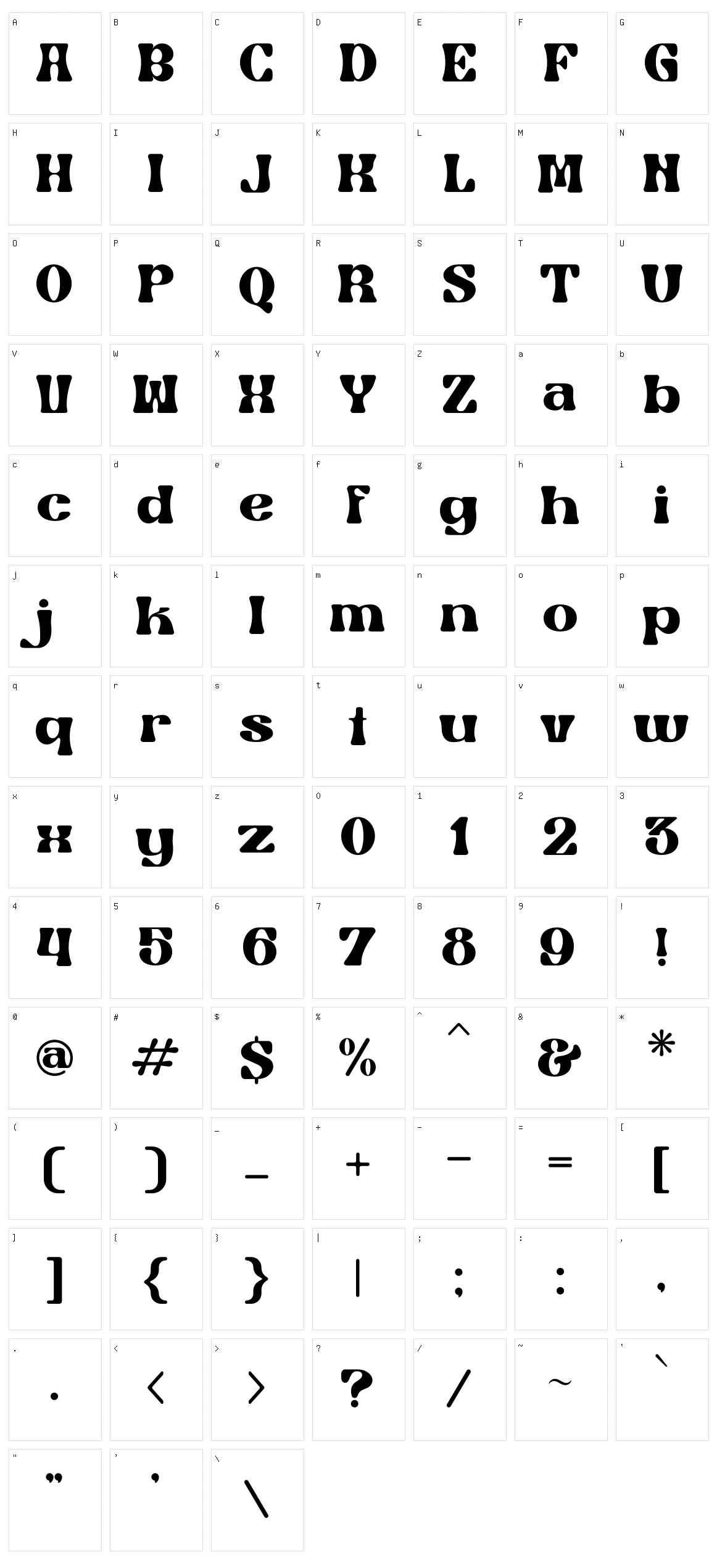
The free font The Beatrik is carefully designed by Storytype Studio, showcasing a thoughtful balance of creativity and usability and falls under the Groovy font style. When you download the ZIP file, it contains only 24.96 KB of font files, making it lightweight and quick to download. Please review the license details below to understand permitted usage and distribution rights. If license information is not available, we recommend using this font for personal projects only or contacting the author directly for commercial usage permissions.